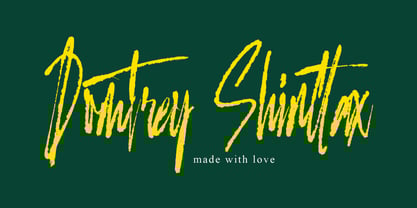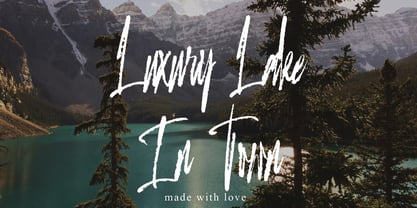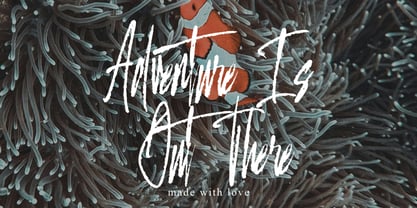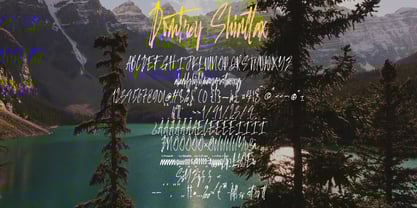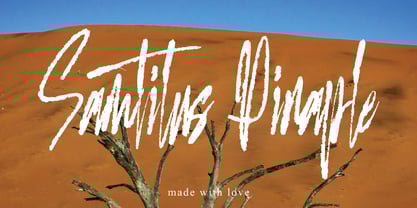
Domtrey Shinttax
by Ayska
The Domtrey Shinttax Font Family was designed by Dhoni Trihatmoko and published by Ayska. Domtrey Shinttax contains 1 styles. More about this family
Presenting Domtrey Shinttax, a striking blend of contemporary style and timeless refinement, drawing vision from the distinguished art of handwritten typography. Precision-crafted, Domtrey Shinttax emanates an air of sophistication, injecting a touch of uniqueness to all digital novelties. Boasting a standout appeal, Domtrey Shinttax enthralls viewers, infusing a distinct charisma to your virtual diary, adding a personal touch to your invitations, and conveying meaningful sentiments through your greeting cards. Delight in the enduring charm and revolutionary craftsmanship of Domtrey Shinttax, which serves as an enhancing element to your picture compilation or bespoke decor. Use it to transfuse run of the mill visuals into bewitching masterpieces, adding a sprinkle of magic to your digital endeavors. Surrender to the fascination of Domtrey Shinttax, your guiding beacon on the voyage towards creating unforgettable works of art. Plunge into the motivational vastness of Domtrey Shinttax, guiding your artistic spirit into honed digital craftsmanship.